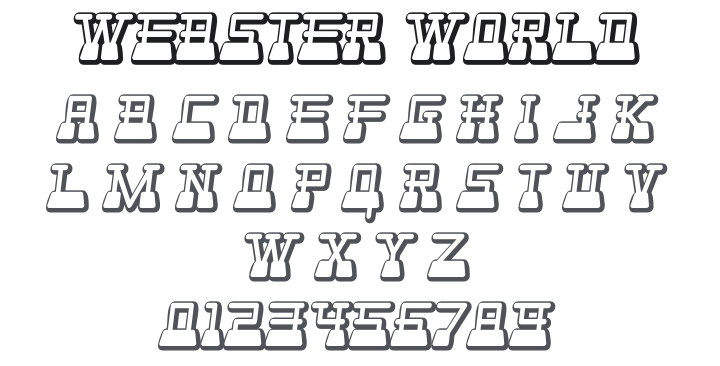
Webster World Font
About Webster World
Webster World is a bold, slanted display typeface with thick, rounded-corner slab-serif letterforms and a built-in outline and drop shadow effect — giving every character a chunky, 3D arcade game cabinet quality straight out of the late 1970s. Its solid, street-tough personality radiates retro-action energy. Perfect for retro game titles, sports team branding, action movie posters, skateboard graphics, and any headline needing bold, punchy old-school impact.